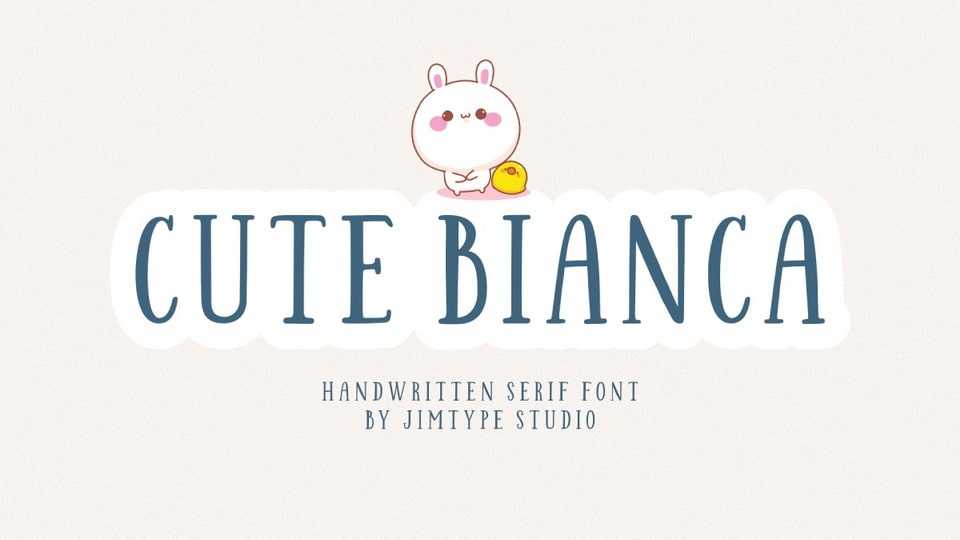
Download Cute Bianca font, a delightful serif handwritten typeface that adds a touch of charm to your creative projects. Tailored for branding, quotes, logos, stationery design, T-shirts, and beyond.